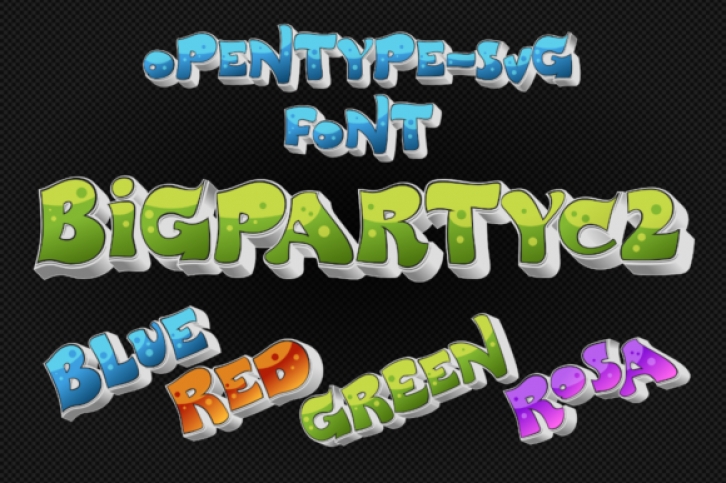
BigPartyC2 is an incredibly unique and friendly color font. It looks lovely on a wide variety of designs, so test this font to each of your creative ideas! You will love the results!